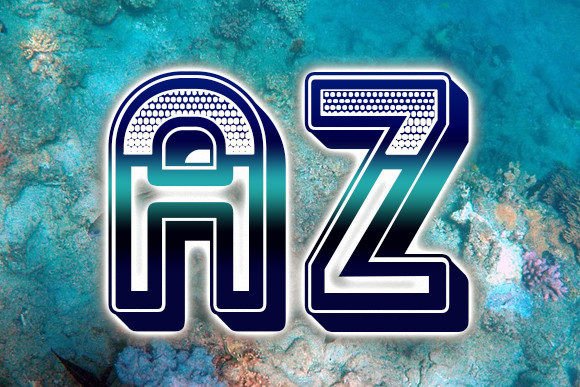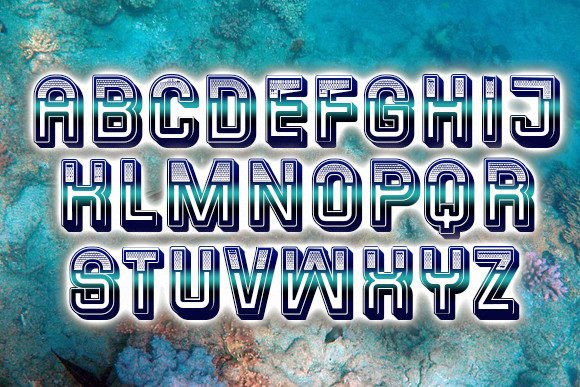
Introduction to Onder Font Font
Fonts play a crucial role in design, and the Onder Font font is a typeface that brings both character and versatility to any project. Whether you’re working on a branding project, a website, or a print design, the Onder Font font offers a unique style that can elevate your work.
Onder is a textured typeface that will inspire Your projects.
Use this font on banners, headlines, and t-shirts .
Key Features of Onder Font Font
Why Choose Onder Font Font?
The Onder Font font is more than just a typeface – it’s a design tool that helps you communicate your message with style and clarity. Its unique character set and versatile design make it suitable for a wide range of applications, from elegant invitations to bold headlines.
With its carefully crafted letterforms and balanced proportions, the Onder Font font ensures readability and visual appeal across all mediums.
What makes Onder Font font special?
The Onder Font font stands out with its unique design, exceptional readability, and versatility across various design applications.